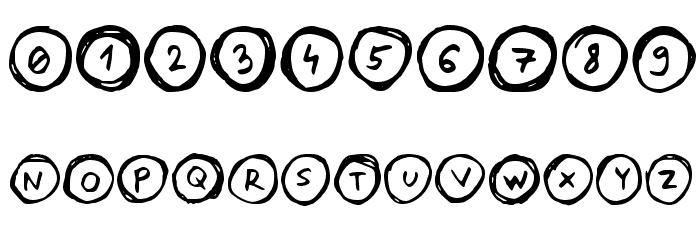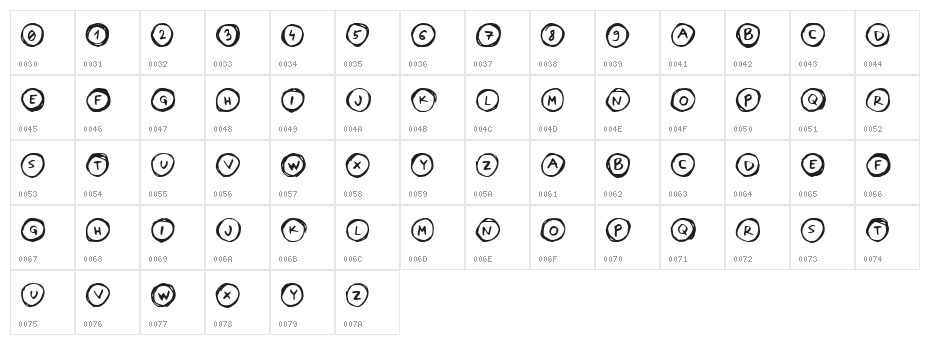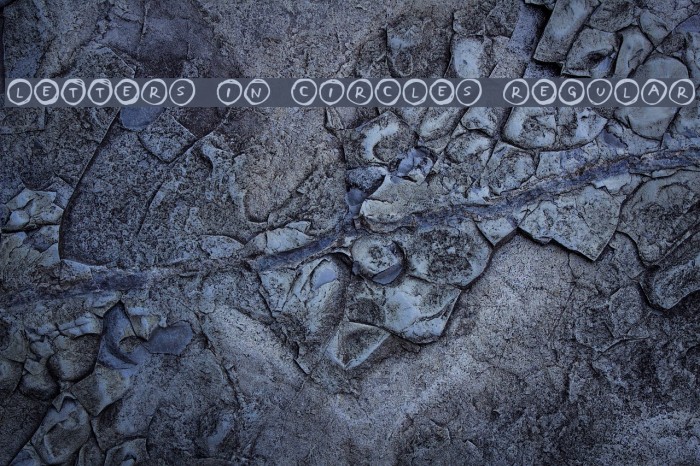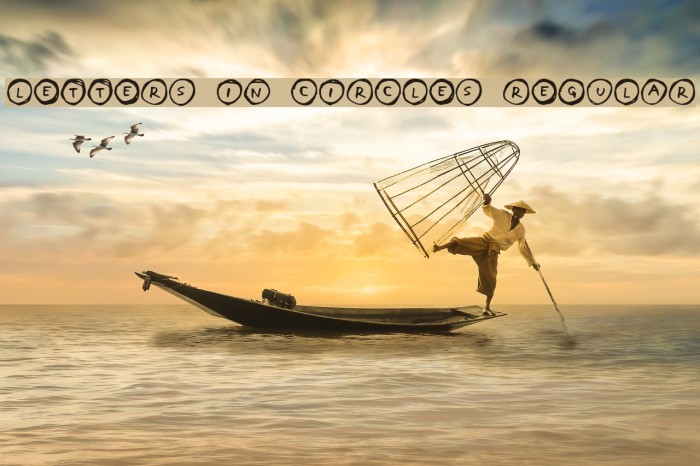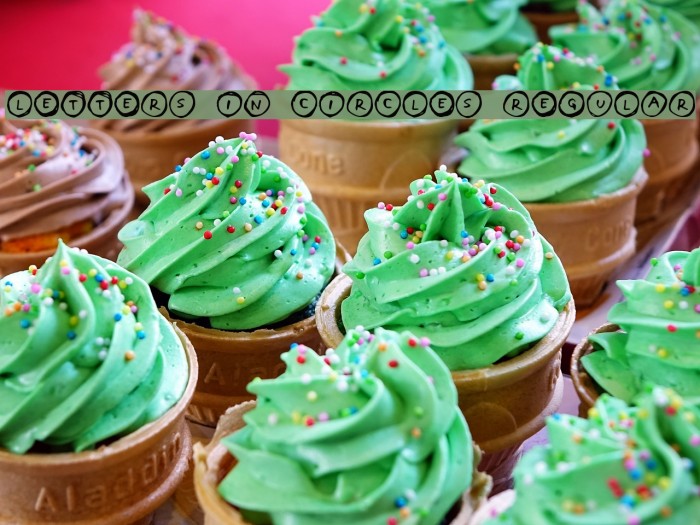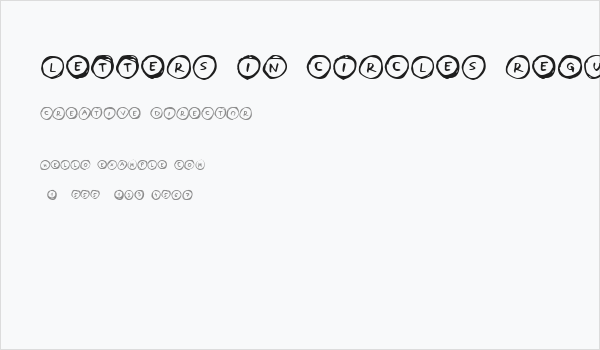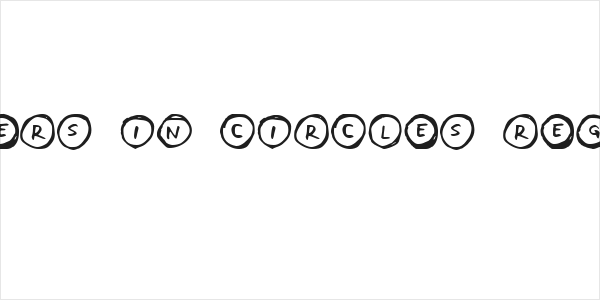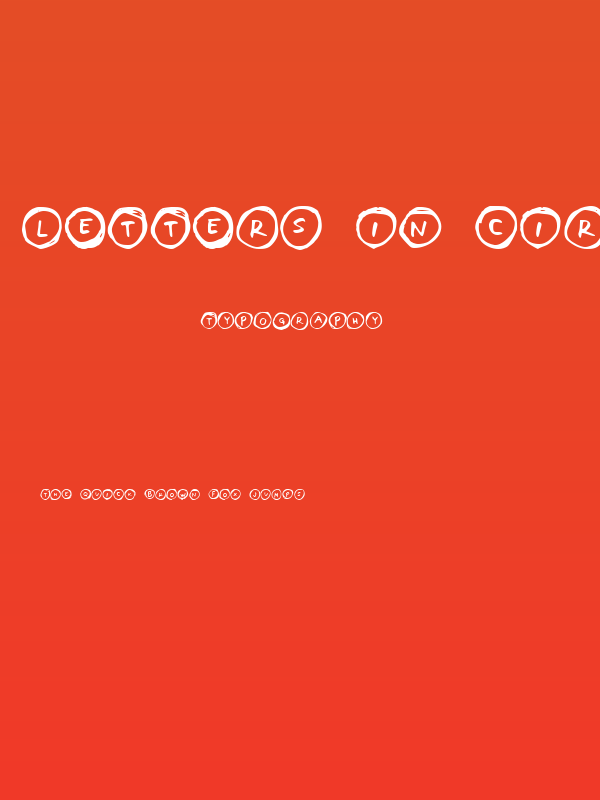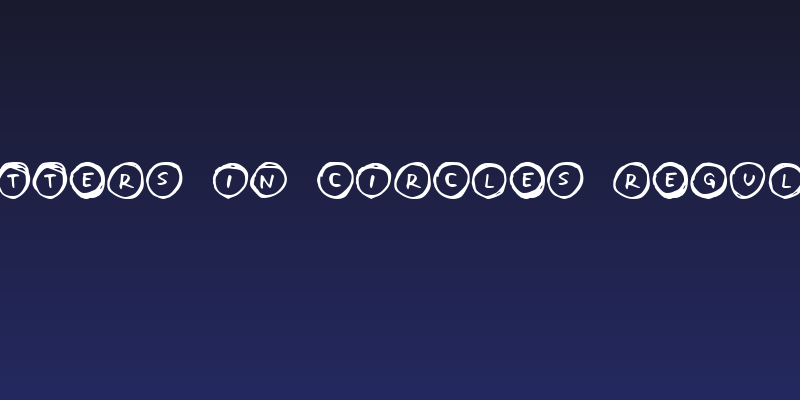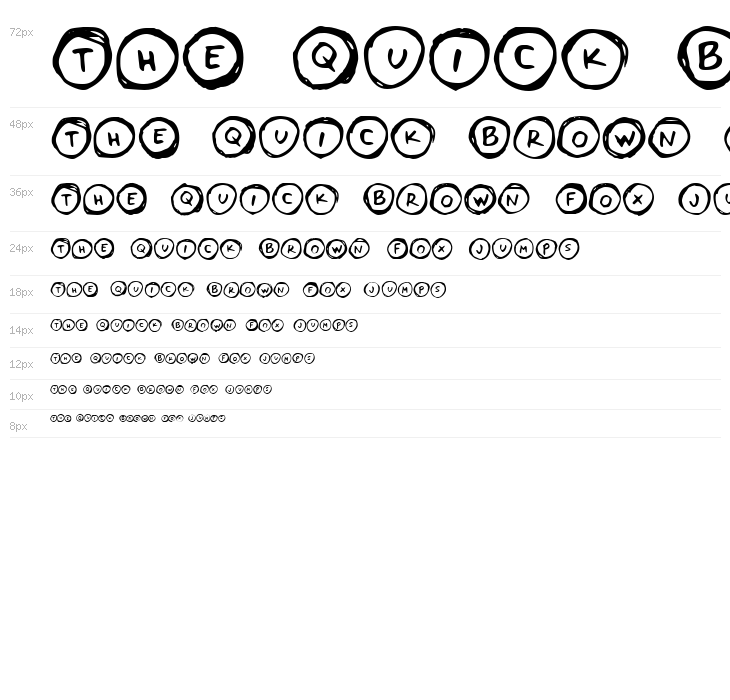
Letters in Circles Regular Font
Letters in Circles Regular Description
This font features a playful and unique design where each character is enclosed within a hand-drawn circle, giving it a whimsical and informal appearance. The letters are uppercase and lowercase, with numbers also included, all maintaining a consistent style. The circles are irregular, adding to the casual and artistic feel of the font. The strokes of the letters are bold and clear, ensuring readability despite the decorative nature of the circles. This font is ideal for projects that require a fun and engaging visual element, such as children's books, creative posters, or playful branding.
| Overall Style | Playful, Artistic |
| Use Case | Headlines, Logos, Creative Projects |
| Proposed Projects | Ideal for children's books, creative posters, playful branding, and any project needing a fun visual element. |